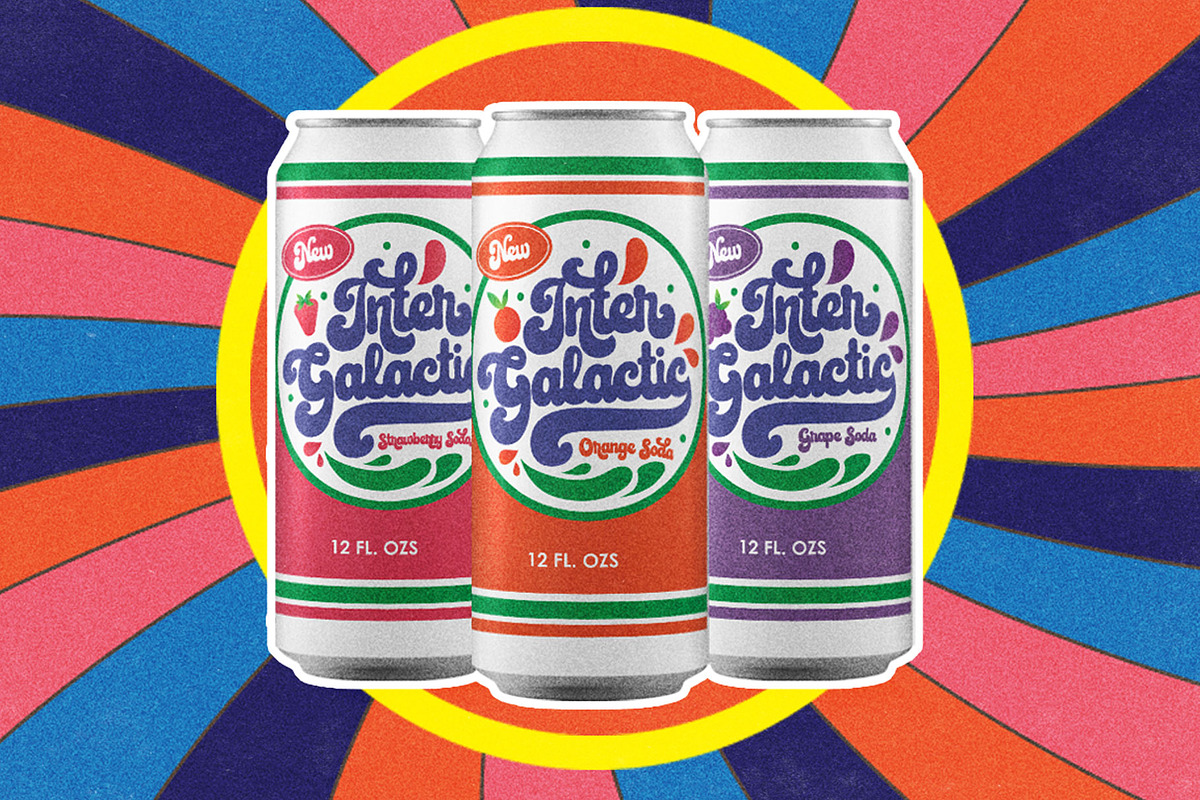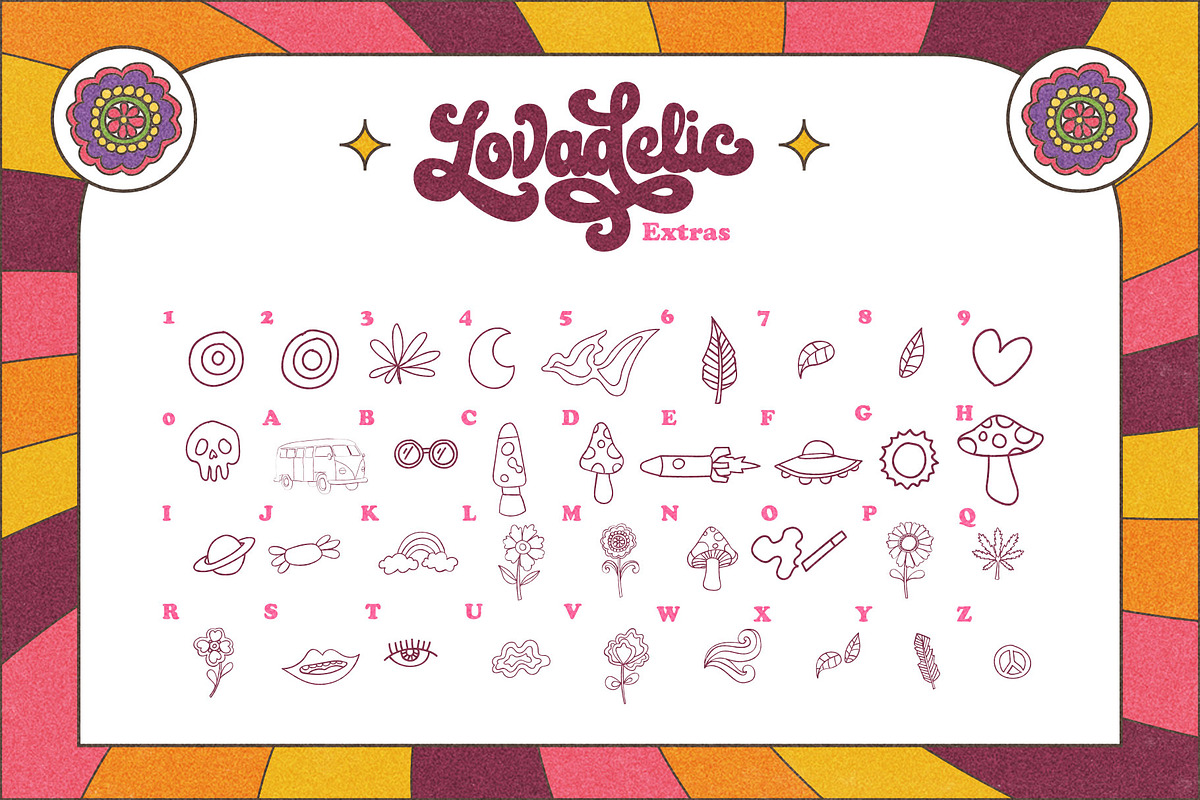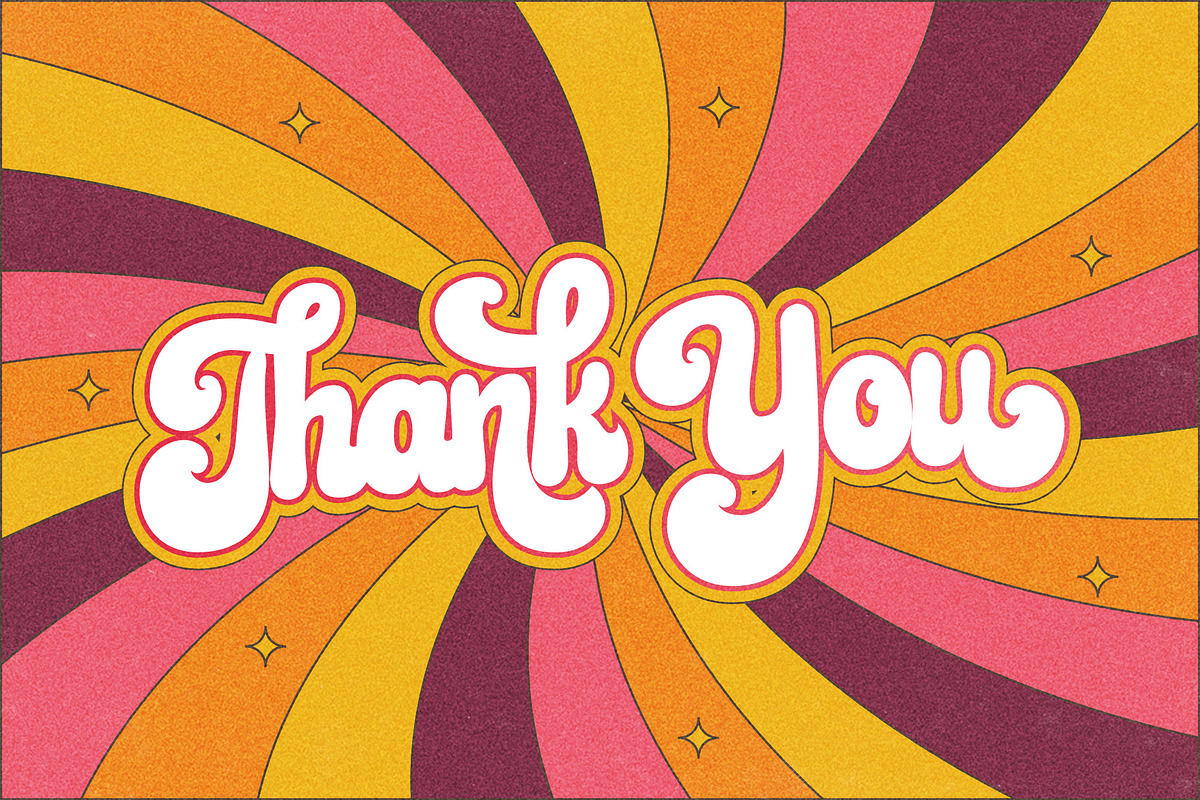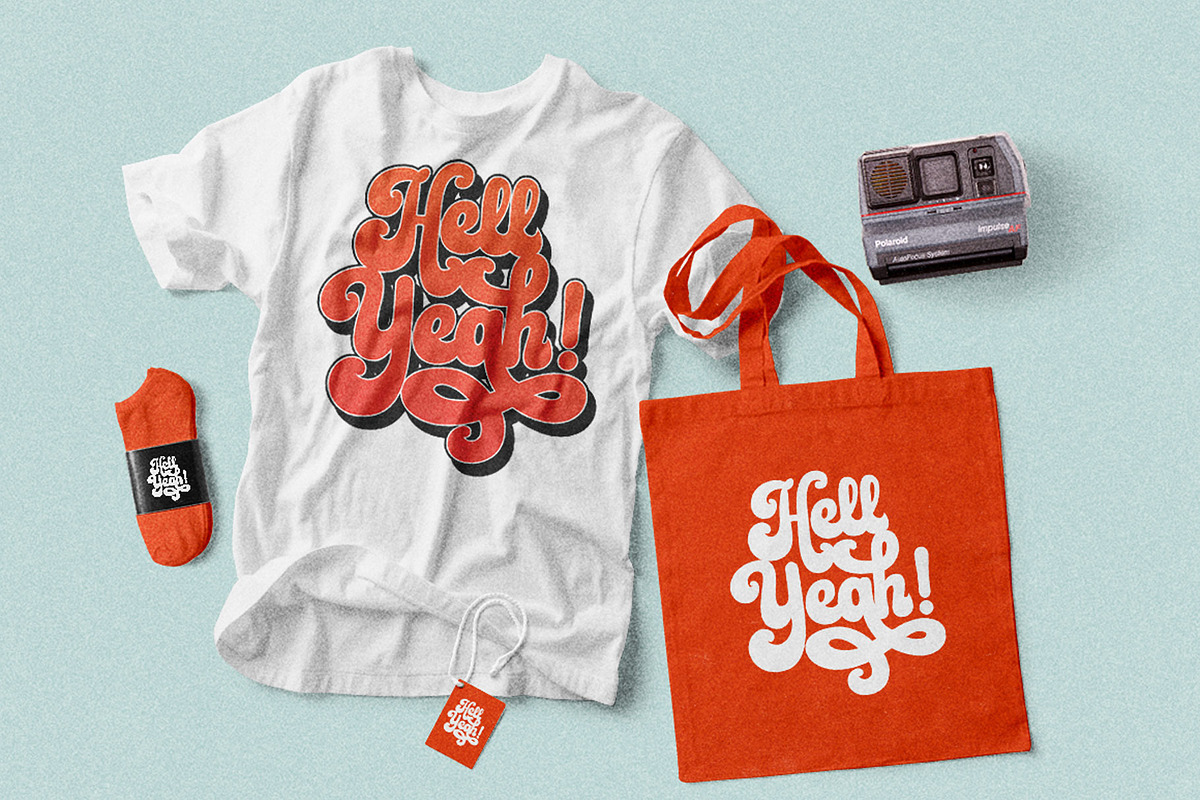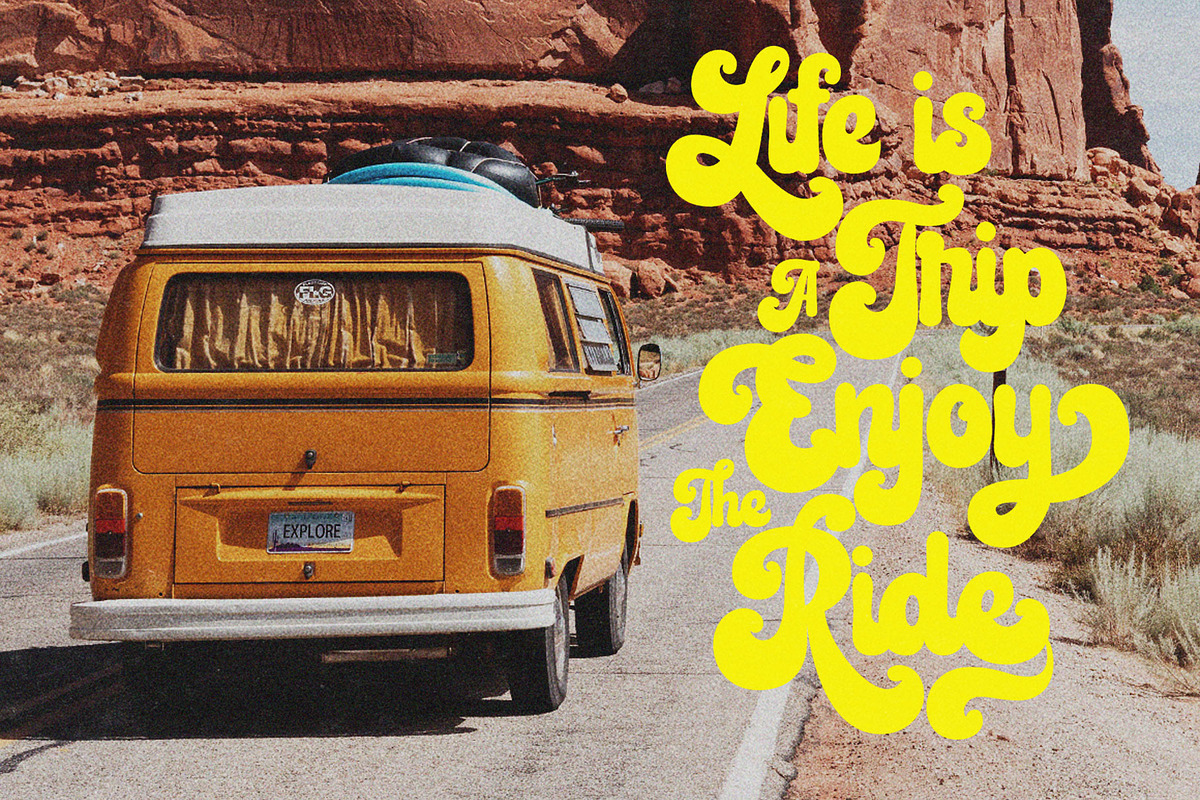
NEW UPDATE! Based on what you've all requested. Now Lovadelic came with 5 font family including Lovadelic Regular, Lovadelic Expand, Lovadelic Slant, Lovadelic Slant Expand, & Lovadelic Extras
Introducing a new retro script called Lovadelic Inspired from 70's script lettering combine with psychedelic balloon typography. Lovadelic came with open type features such stylistic alternates, stylistic sets, contextual alternates & ligatures. The package also came with extras graphic to help you make stunning design.
LovadelicTypeface best uses for headings, Logo type, quotes, apparel design, invitations, flyer, poster, greeting cards, product packaging, book cover, printed quotes, cover album, movie, etc